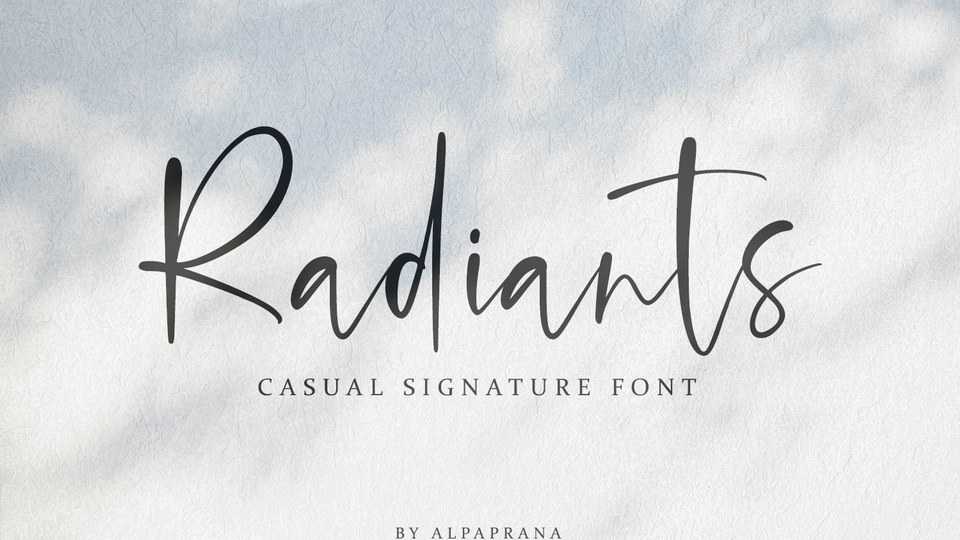
Download Radiants font, a stunning signature typeface with an authentic and casual feels. Radiants will be perfectly used for branding, logo design, lettering, clothing, poster, magazine, photography, special events and other design projects.
Designer: Alpaprana Studio